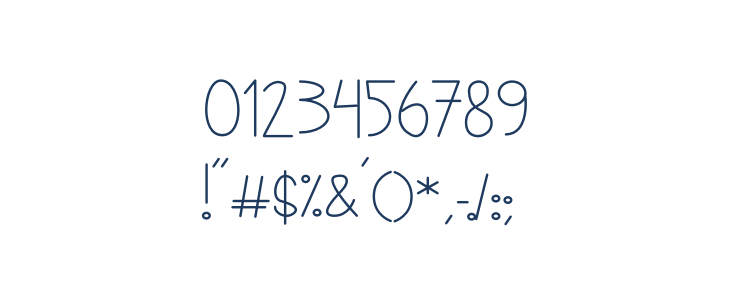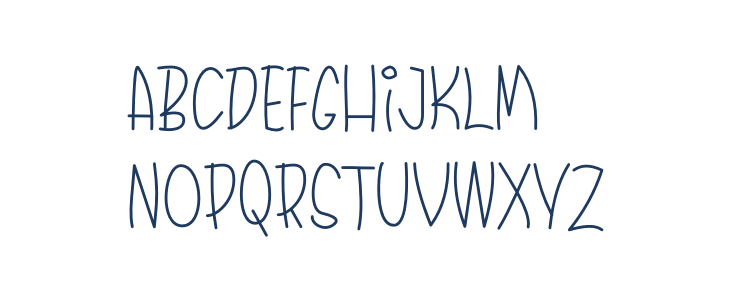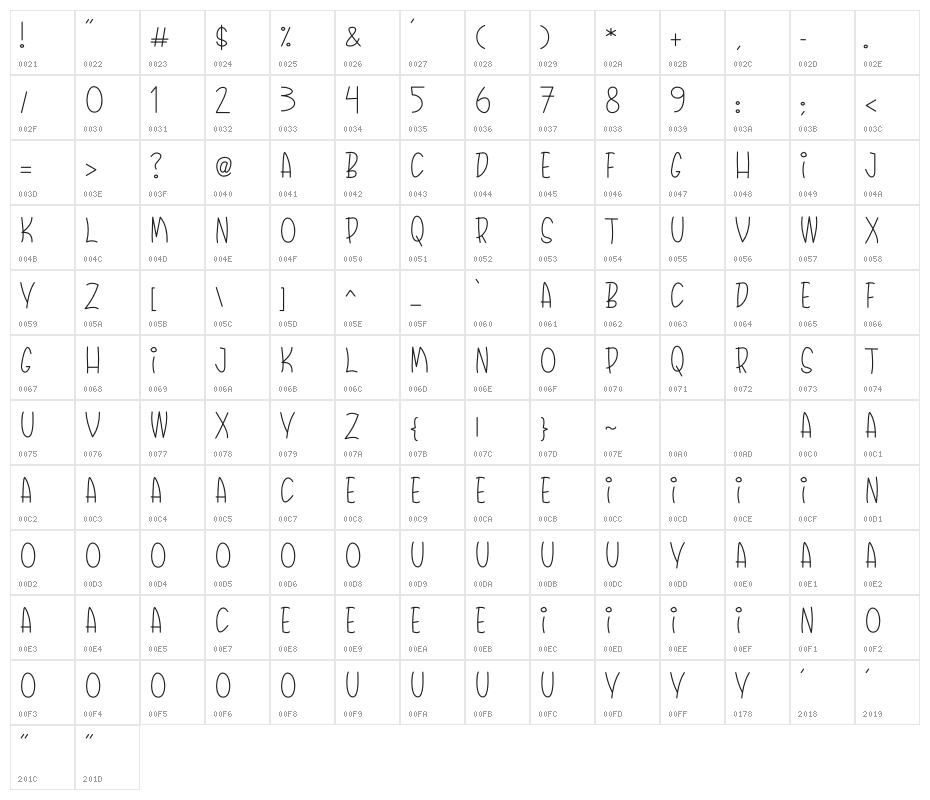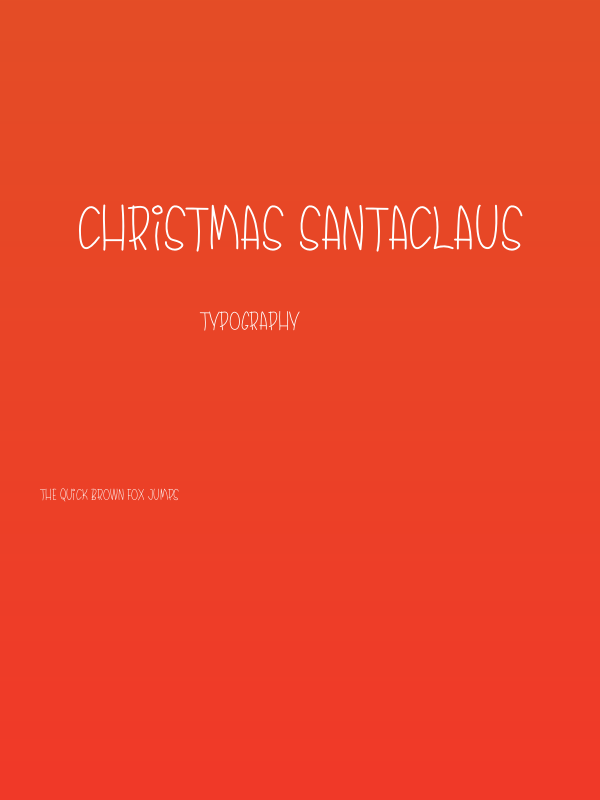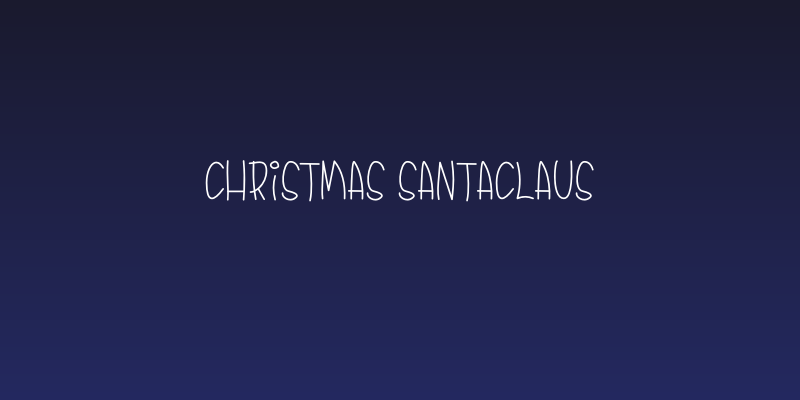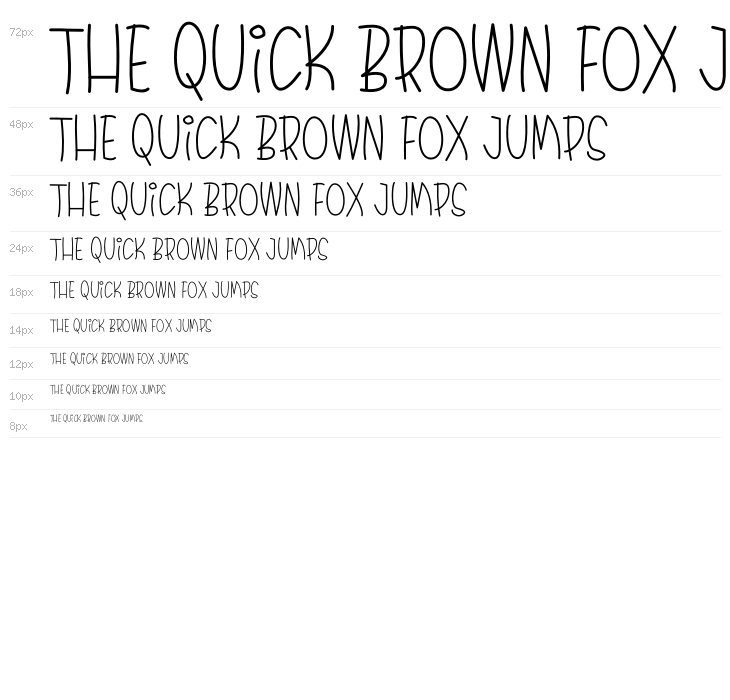
Christmas Santaclaus Font
Christmas Santaclaus Description
A playful, handwritten sans-serif font with tall, narrow letters and rounded edges. The strokes are consistent in thickness, giving a casual and whimsical appearance. The characters have a loose, informal spacing and a friendly, approachable feel.
| Overall Style | Playful, Casual, Whimsical |
| Use Case | Greeting cards, Invitations, Posters, Children's materials |
| Proposed Projects | Greeting cards, children's books, holiday invitations, playful branding, posters. |